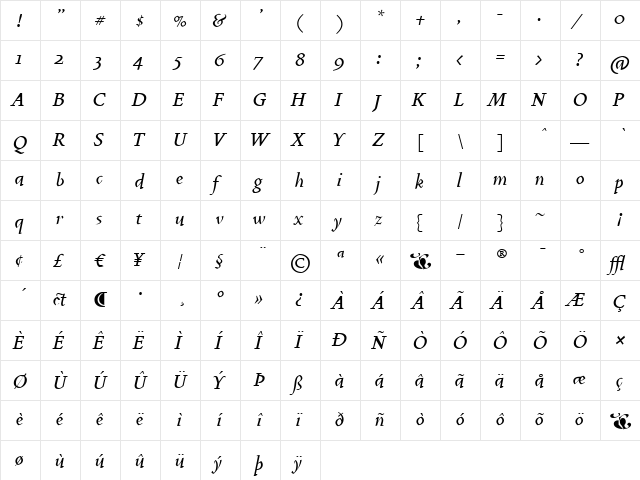
VendettaMediumItalic Italic
| Foundry | Emigre |
| Designer | John Downer |
Design Context for VendettaMediumItalic Typeface
VendettaMediumItalic offers clean, dependable letterforms without strong stylistic allegiance, making it a practical choice for designers who need flexibility. The slanted form adds forward momentum and visual energy.